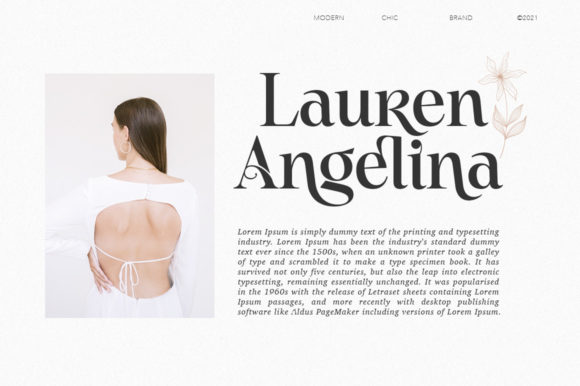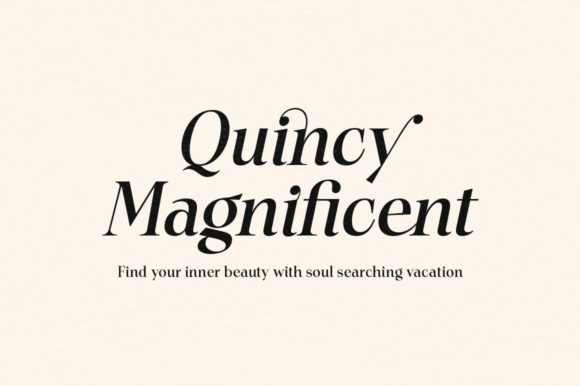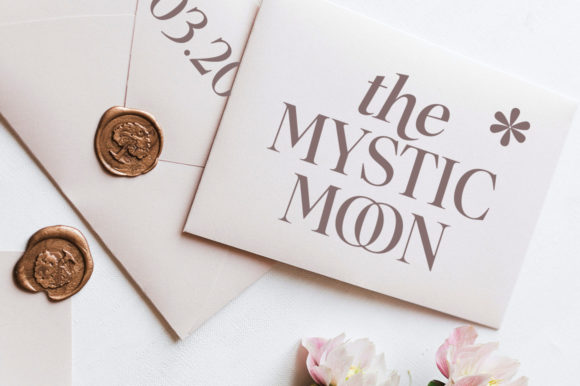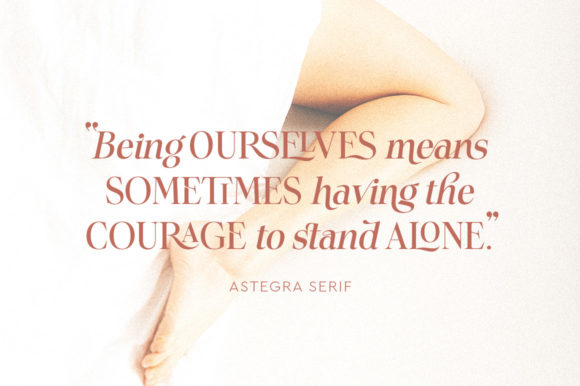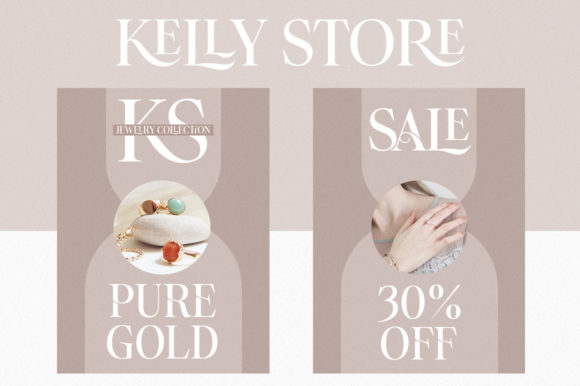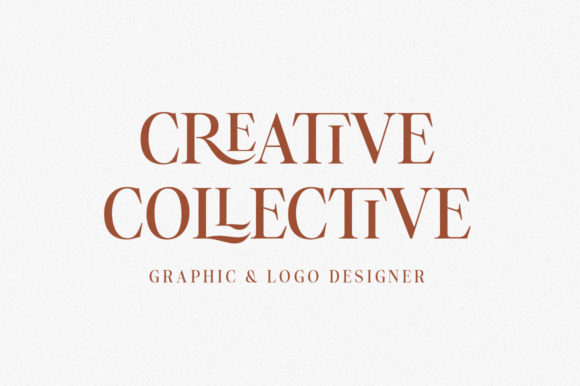
Unlocking the Secrets of Astegra Font: A Designer’s Dream Come True
Have you ever been brainstorming a new project, pouring over ideas, and finally, it hits you – the perfect concept? That’s exactly what happened to us when we stumbled upon the stunning Astegra Font. Its modern serif design and unique ligature style set our creative juices flowing, and we couldn’t wait to share it with you.
Astegra Font is a versatile and stylish typeface, crafted to perfection for feminine logo designs, fashion-forward branding, and editorial projects. With its high contrast and light font, it’s the perfect tool for designers looking to add a touch of elegance and sophistication to their work. And the best part? It’s PUA encoded, making it easy to access all the amazing glyphs and ligatures.
- Unique Characteristics: Astegra features a clean, modern design with a subtle rounded edge on the corners of the letters, giving it a friendly and approachable feel. The font also includes a wide range of language support, including Latin, Cyrillic, and Greek scripts.
Astegra Font Review
Overall, I’m quite impressed with the Astegra font. Here are some of the things that work well: ✨
- Unique style: Astegra has a distinctive, modern aesthetic that sets it apart from more common fonts.
- Legibility: Despite its bold appearance, the font is still highly legible, making it suitable for a variety of applications.
- Customization options: Astegra comes with a range of customization options, including different weights and styles, which allows for a high degree of flexibility.
- Limited language support: Astegra may not support certain languages or scripts, which could be a problem for multilingual projects.
- Not ideal for small text: While Astegra is legible at larger sizes, it can become difficult to read at smaller sizes, which may limit its use in certain applications.
Overall, I think Astegra is a solid choice for designers looking for a unique, modern font. While it may have some limitations, its customization options and unique style make it a great option for a variety of projects.
1. Use the Astegra font for headings and titles to add a touch of elegance.
2. Experiment with different font sizes and styles to create visual interest.
3. Pair the Astegra font with other fonts to create a unique and harmonious typography.
2. Luxury branding and marketing materials.
3. Editorial and publishing content.